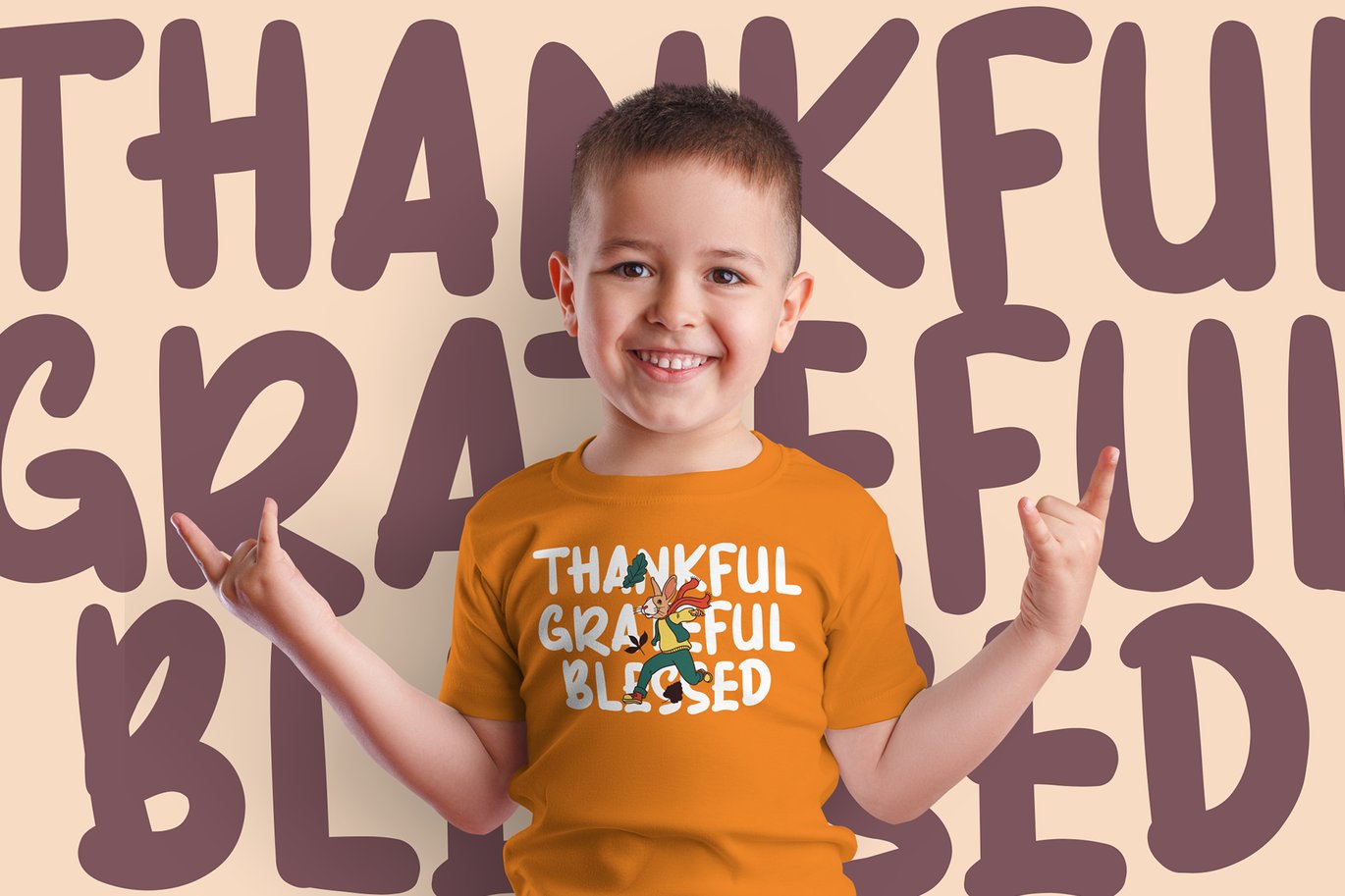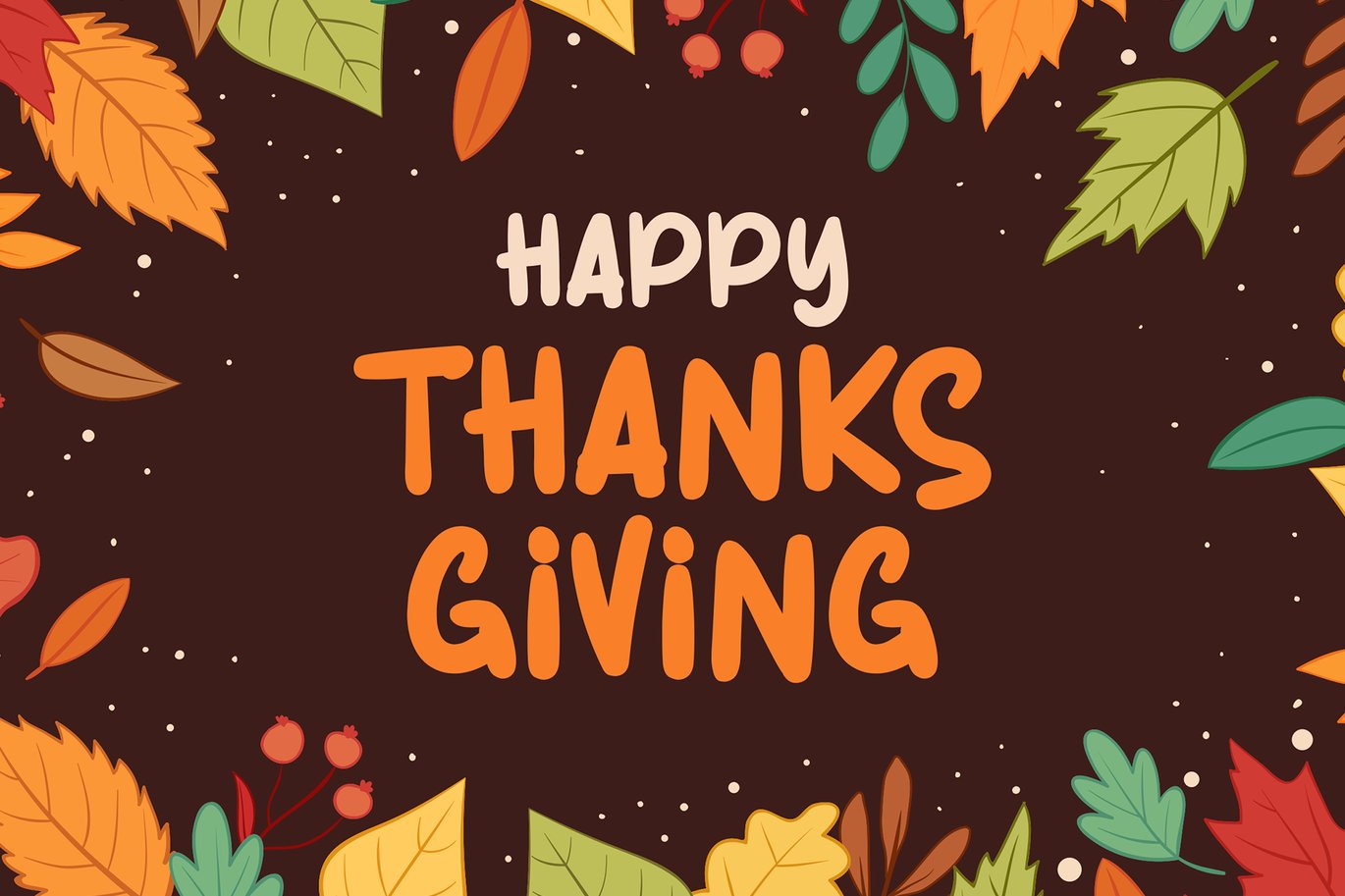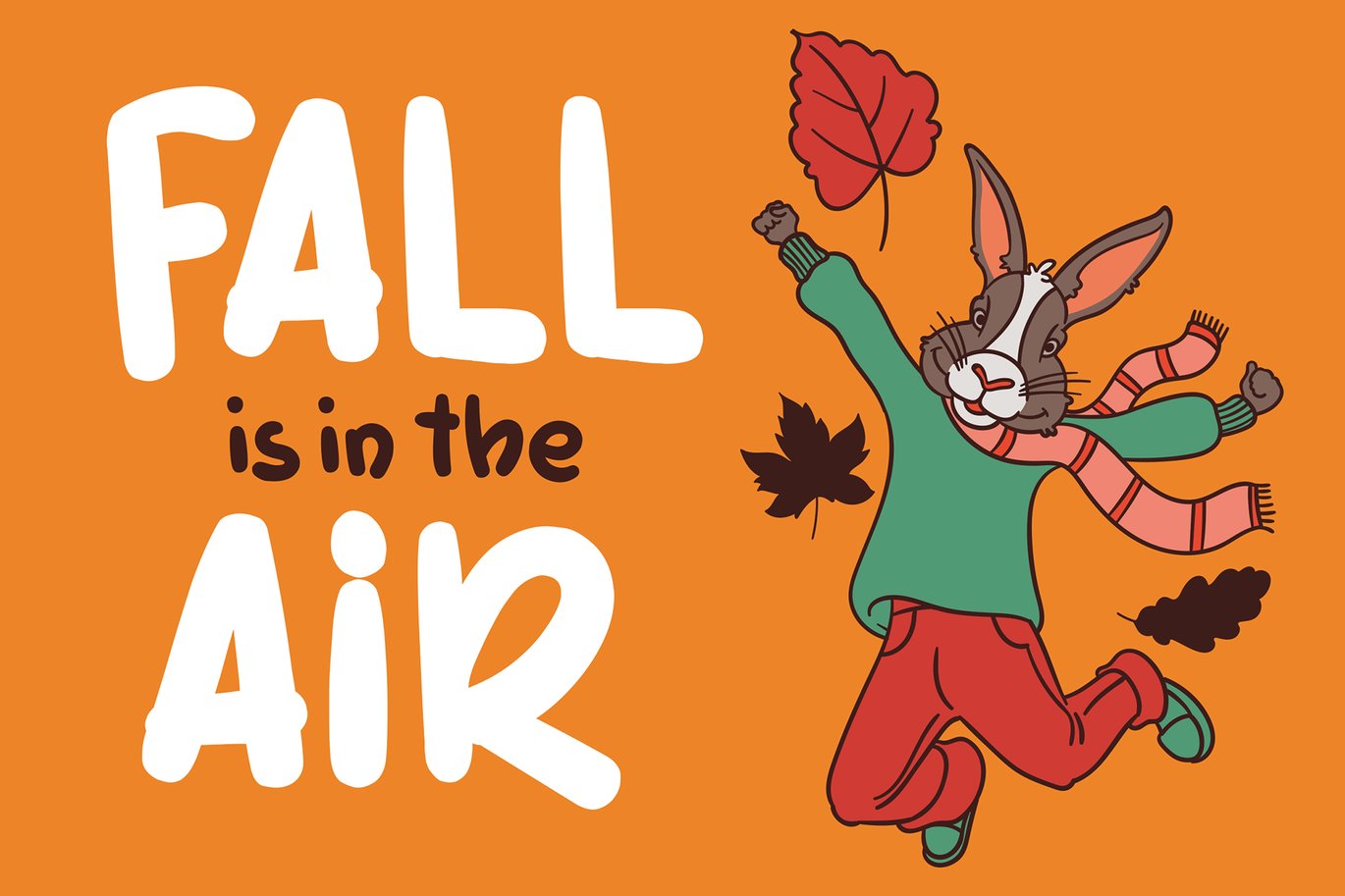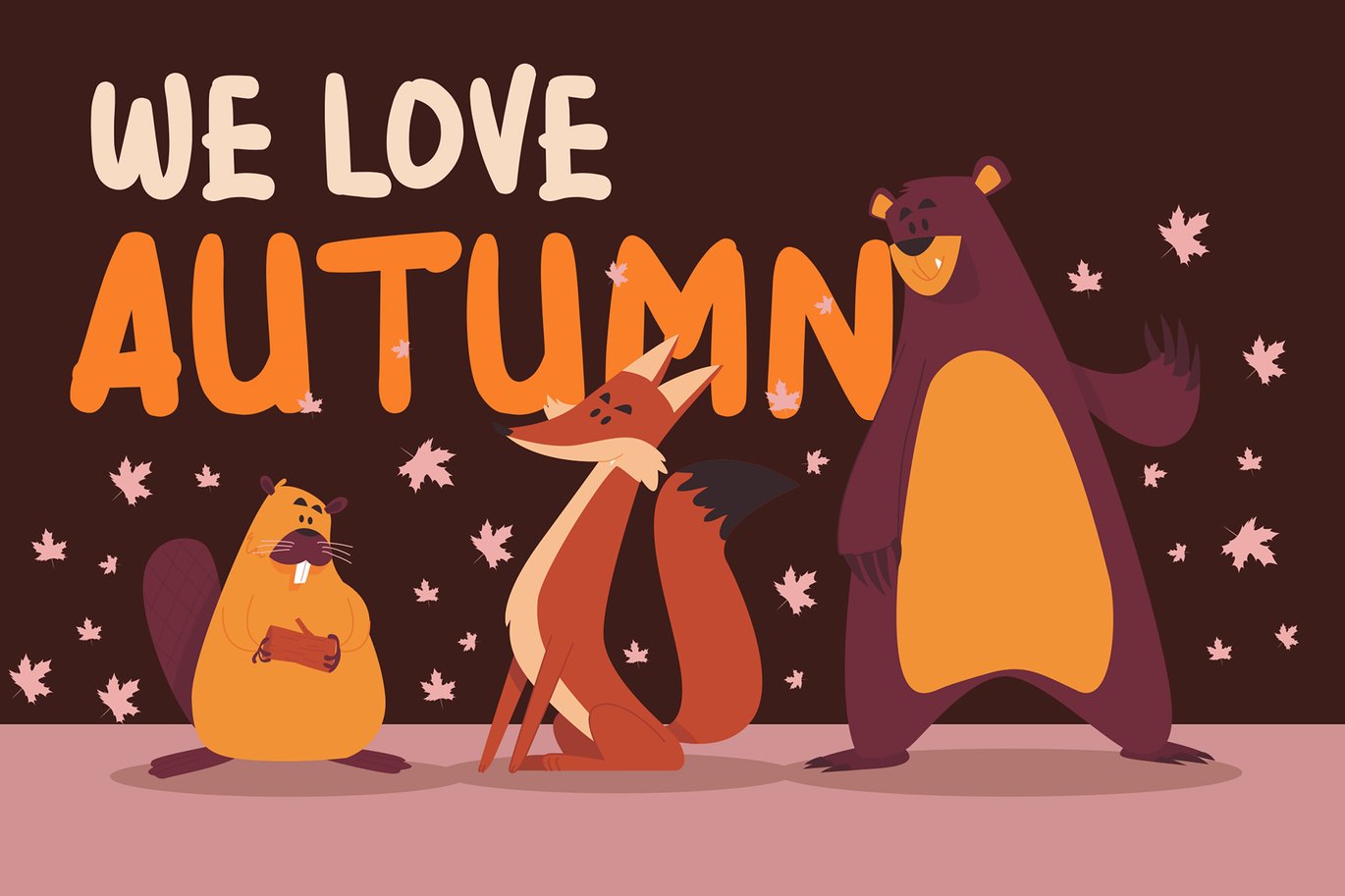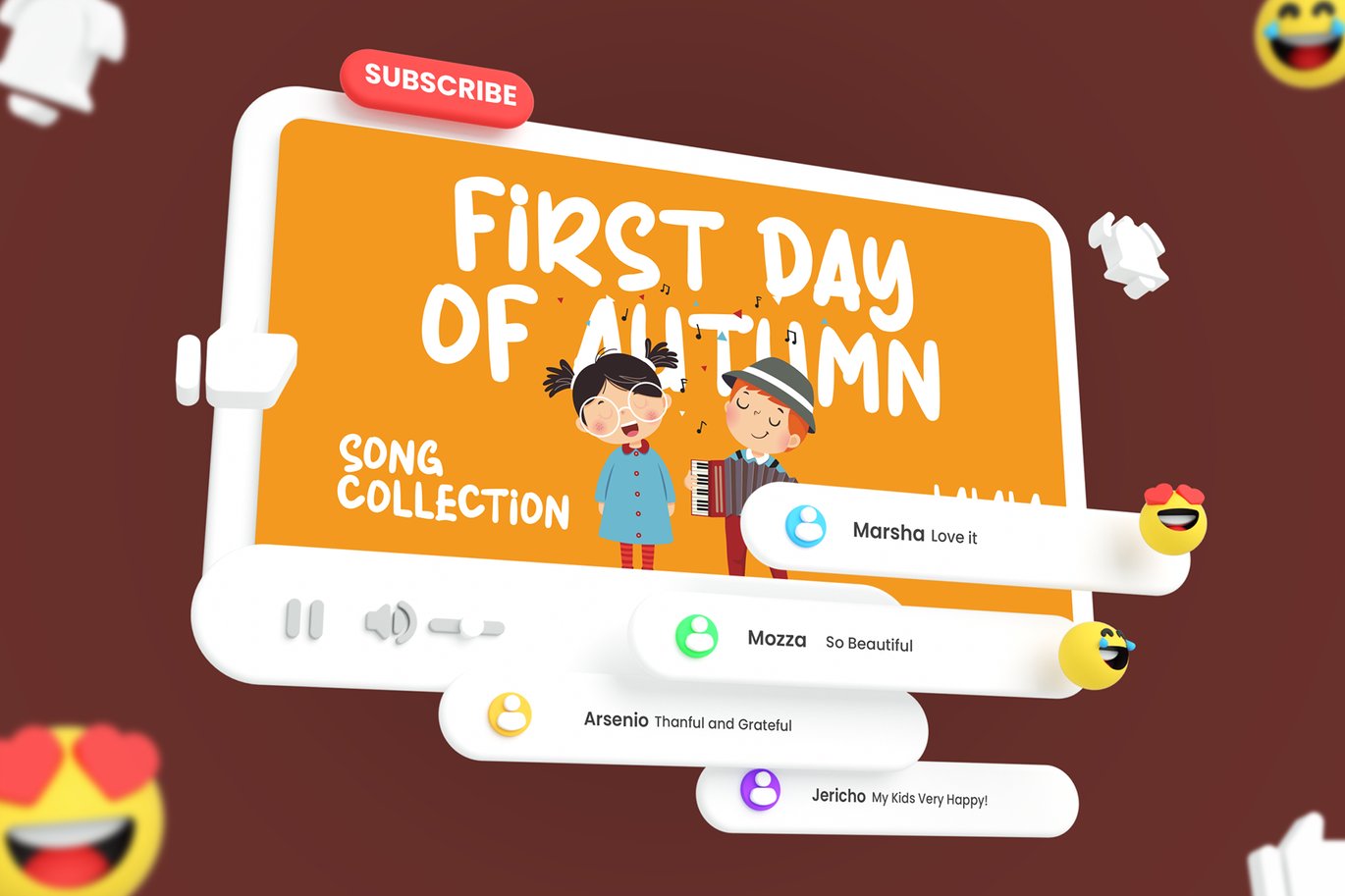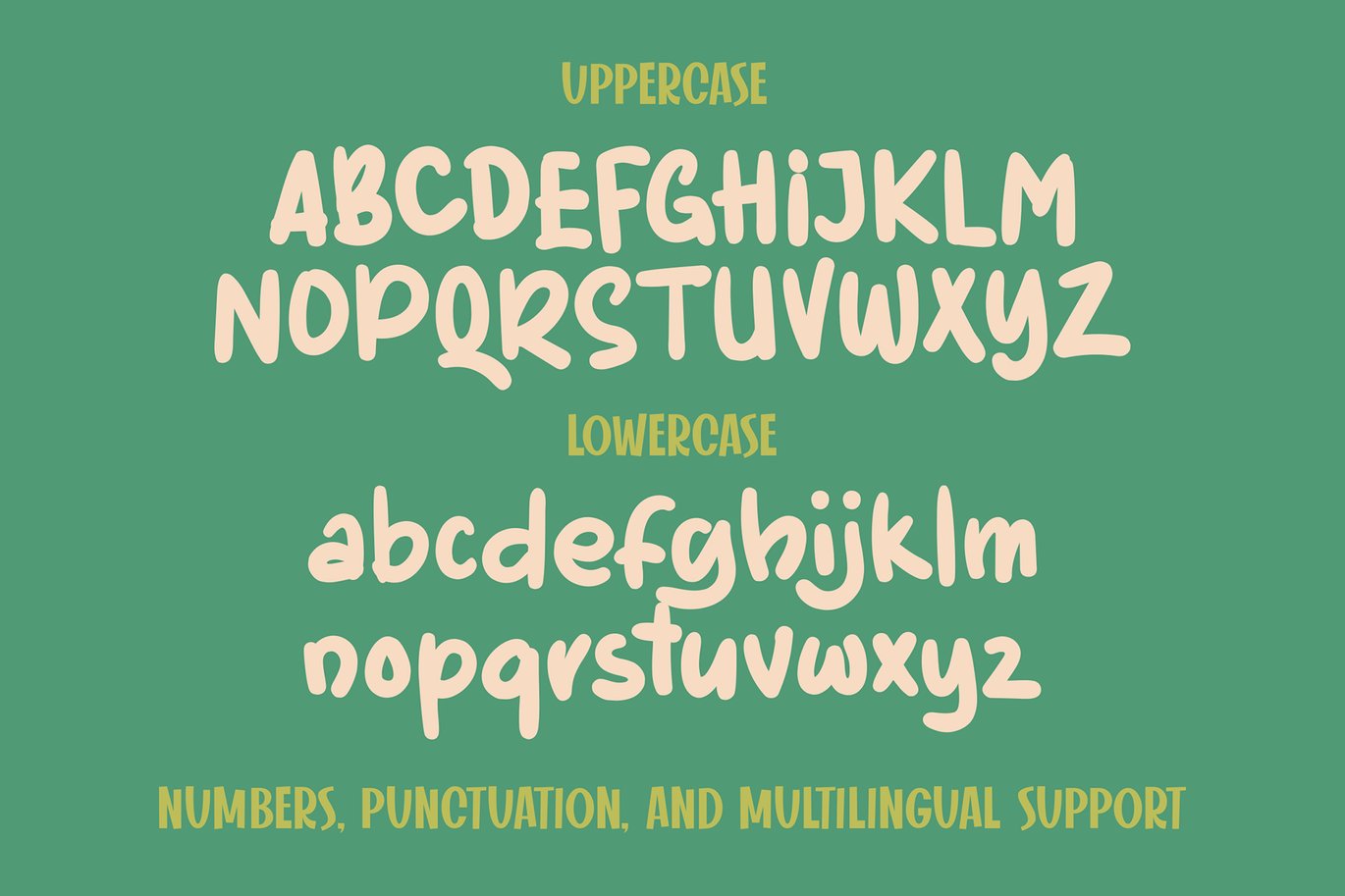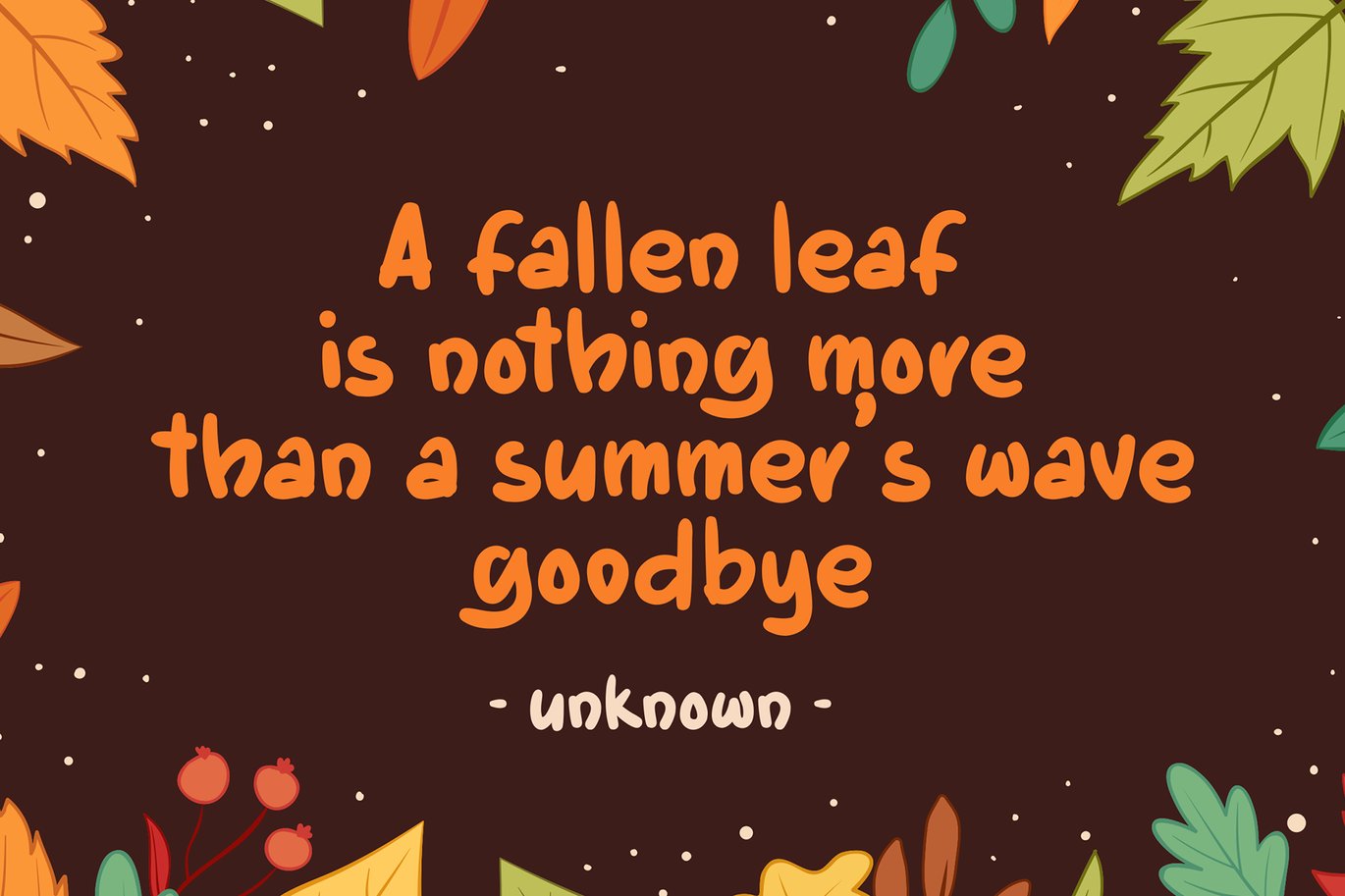
Harvest Bread – Autumn Display Font
Harvest Bread is a fun display font inspired by the warmth of an autumn and thanksgiving moment, carefully crafting to make your design more unique
Harvest Bread works great in any branding, posters, especially your thanksgiving stuff.